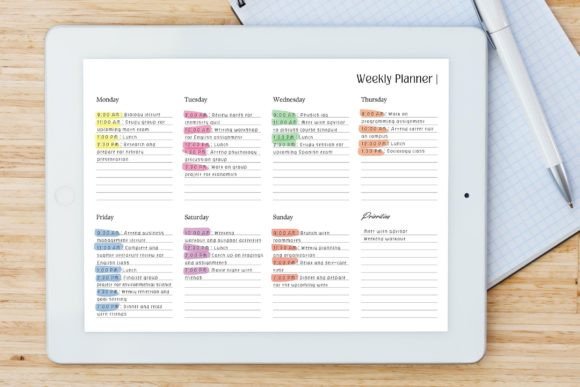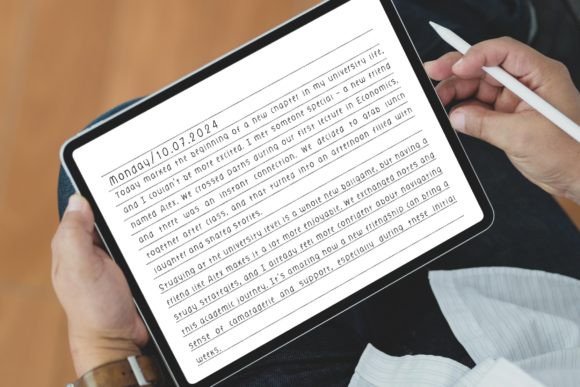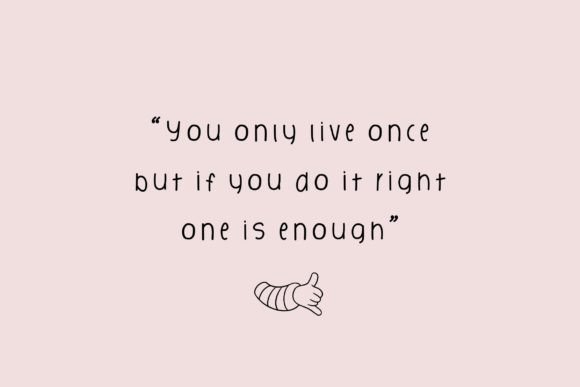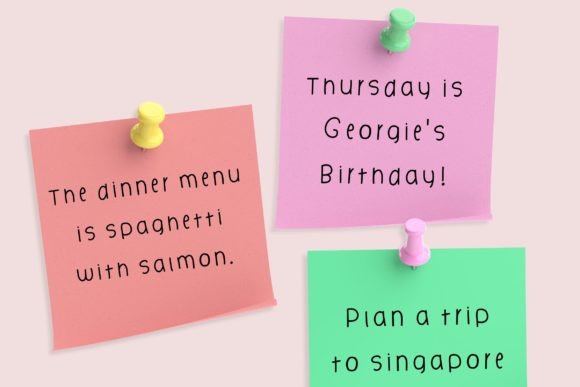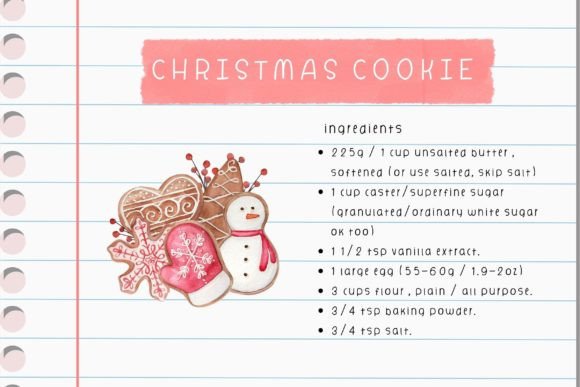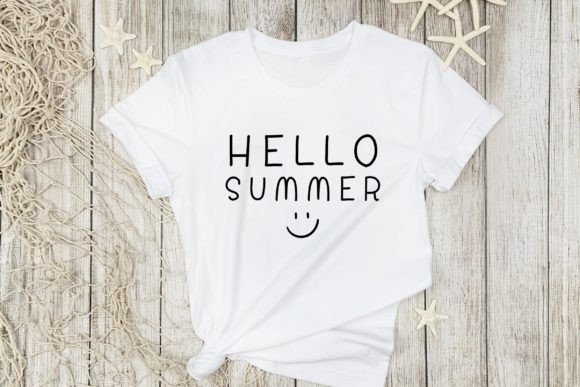
Introduction to Lively Writing Font
Meet “Lively Writing,” the playful handwritten font designed to infuse vibrancy and character into your creative projects.
Easy to read and versatile, this font is perfect for a range of applications, including note-taking, digital planners, educational materials in GoodNotes, greeting cards, quotes, handwritten notes, T-shirts, and more With its spirited strokes and engaging style, “Lively Writing” turns mundane tasks into lively expressions of creativity.